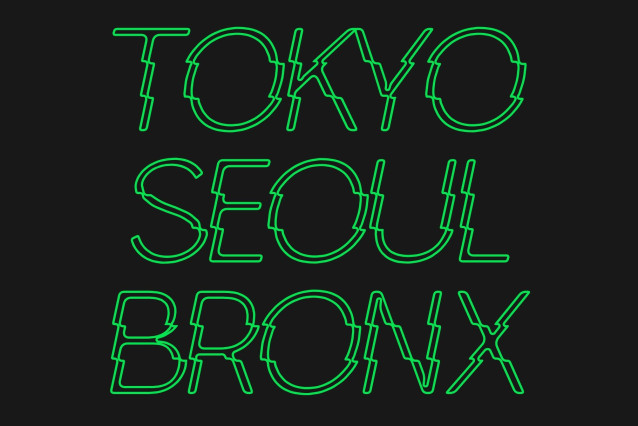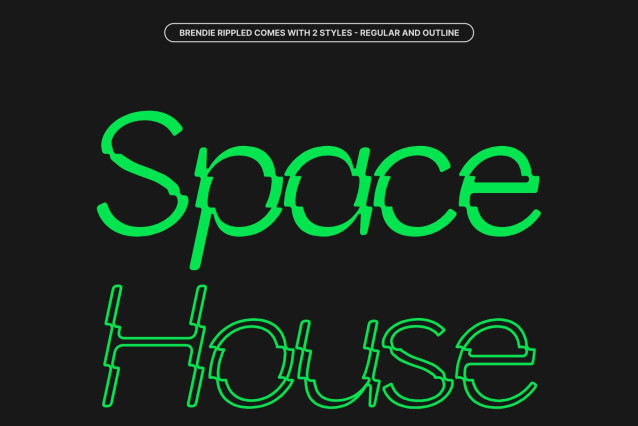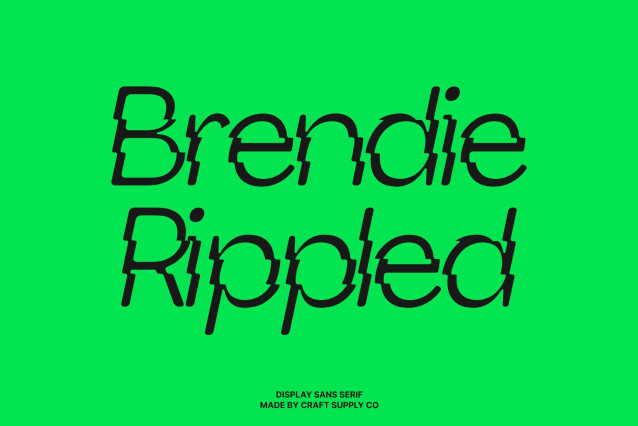
Brendie Rippled – Modern Sans Serif Display Font: Where Refined Simplicity Meets Fluid Wave Motion
Contemporary Elegant Forms with Smooth Visual Flow
this is a modern sans serif display font designed with refined simplicity and fluid contemporary elegance. Its clean structure and balanced proportions create a sleek modern appearance that feels stylish, sophisticated, and visually calming. Every character carries a smooth and polished personality, making the font ideal for modern creative compositions that seek elegance with expressive movement.
Rippled Effect with Liquid Distortion Aesthetic
This font creates the illusion of typography reflected on water or shaped by flowing waves. The fluid distortion introduces rhythmic motion, organic energy, and surreal visual depth, giving the font a dynamic yet graceful appearance. This liquid-inspired styling adds artistic movement while preserving clarity and modern refinement.